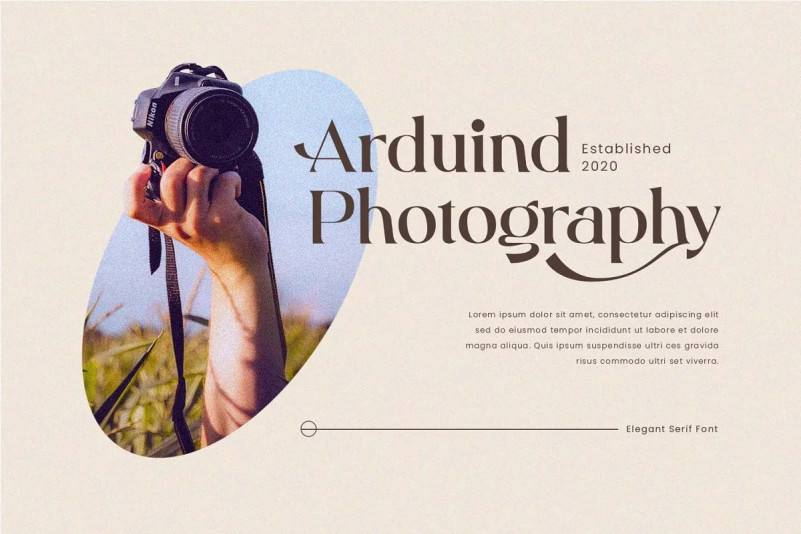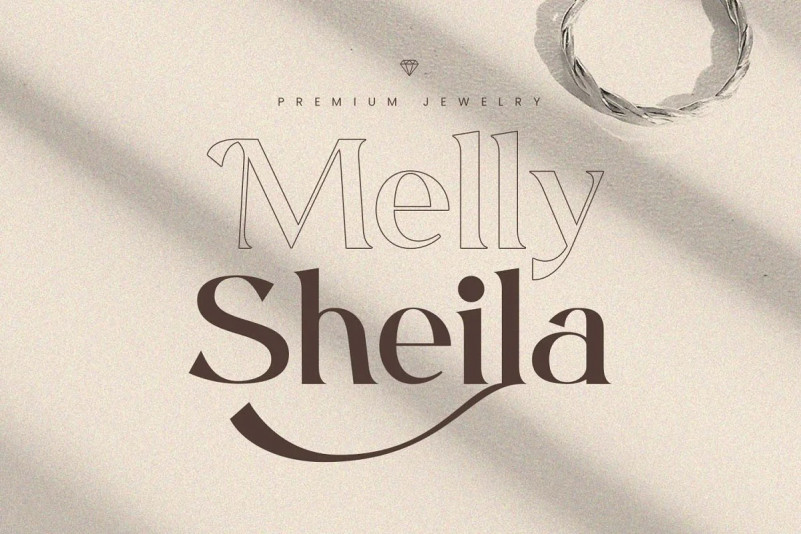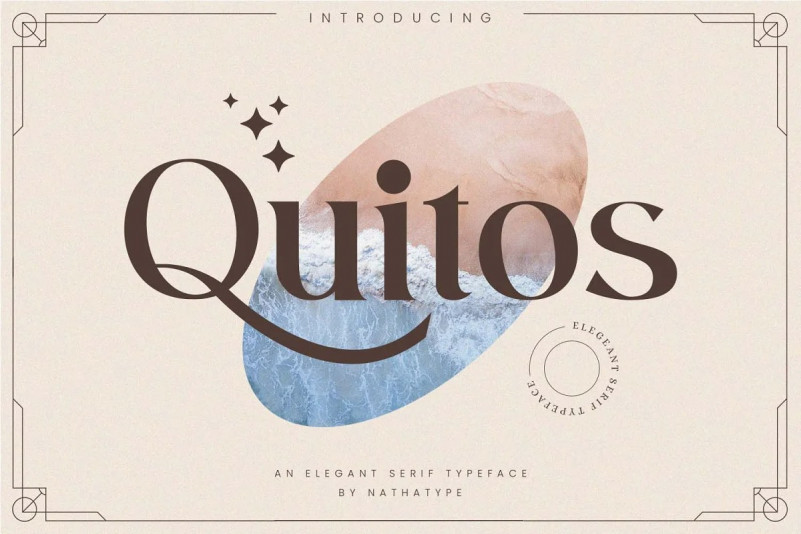
Quitos Font
Quitos-Serif Font, A modern and elegant serif font that’ll make your audience swoon and enhance your branding projects, printed materials, and website design. This font was created to bring out modernity and style. Ideal for social media banners; posts, and ads, printed quotes, t-shirt designs, packaging, or even as a modern text overlay to any background image.